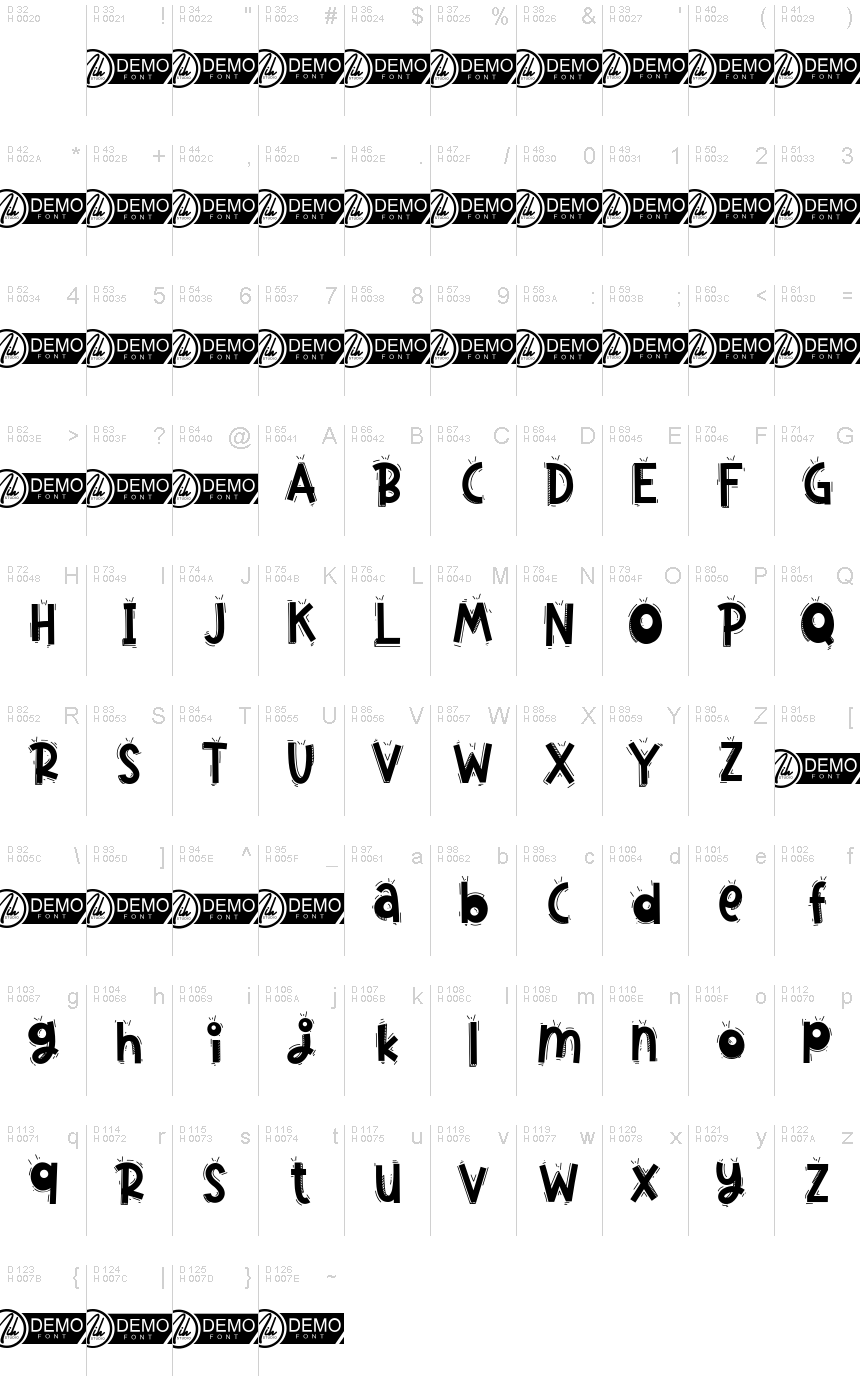
Comic Crayon font, designed by NihStudio, exudes a playful and whimsical charm that captures the essence of youthful creativity. Its bold and cartoonish figures are balanced by lighthearted, inviting curves, making it perfect for any design venture that seeks to evoke joy and spontaneity. This display typeface showcases exaggerated forms that dance across the page, encouraging interaction and delight.
With its compelling aesthetic, Comic Crayon is ideal for children’s books, playful branding, event invitations, or lively advertisements. This font invites viewers into a world of imagination and fun, effortlessly bringing projects to life with its vibrant personality. Embrace the spirit of creativity with Comic Crayon-a truly unique choice for designs that aim to inspire smiles.